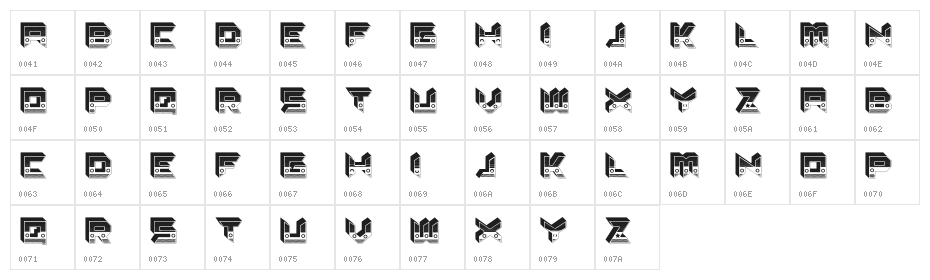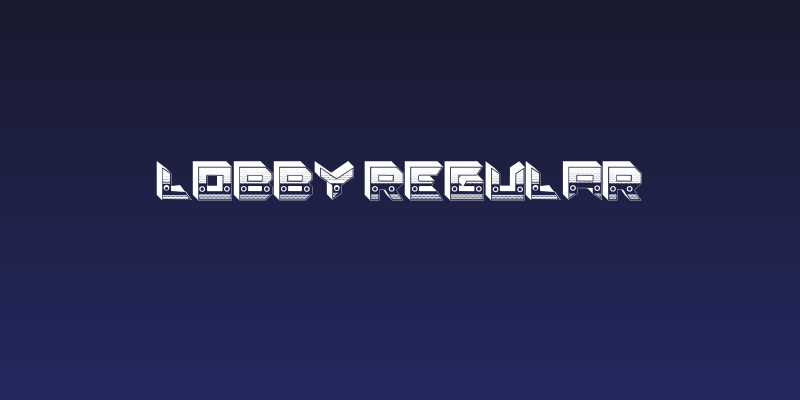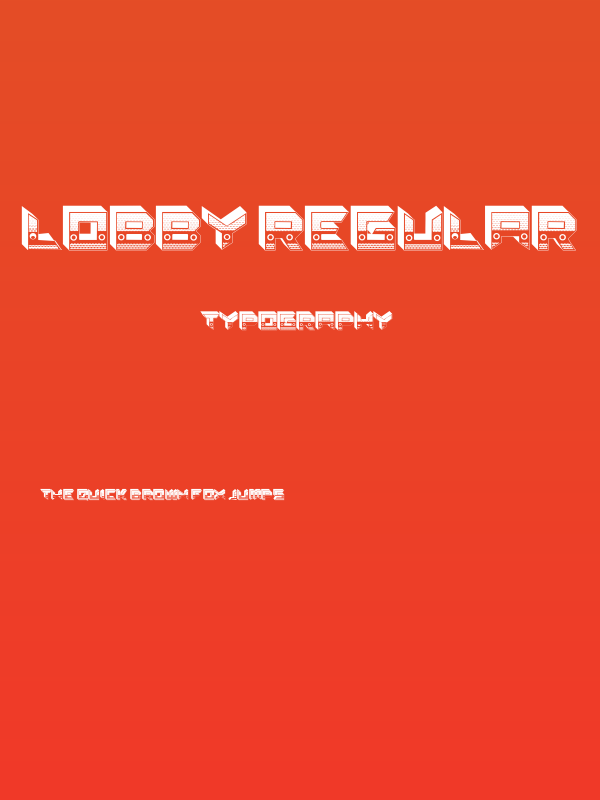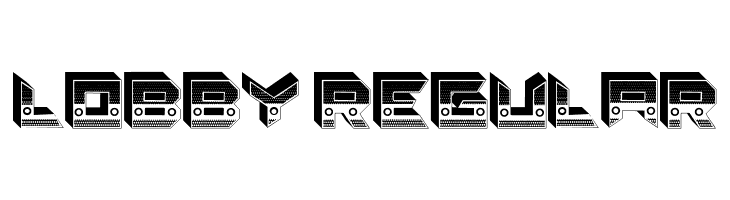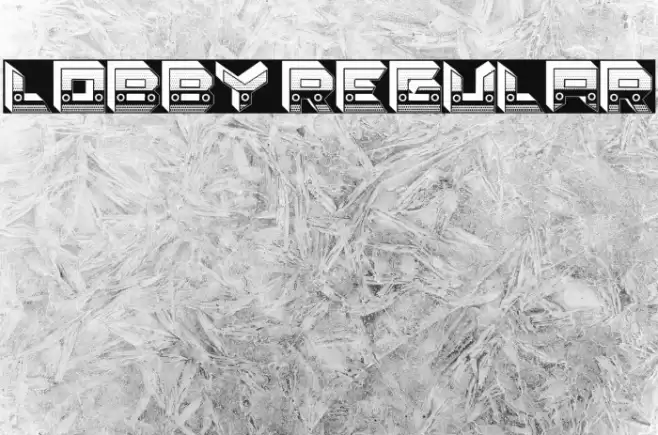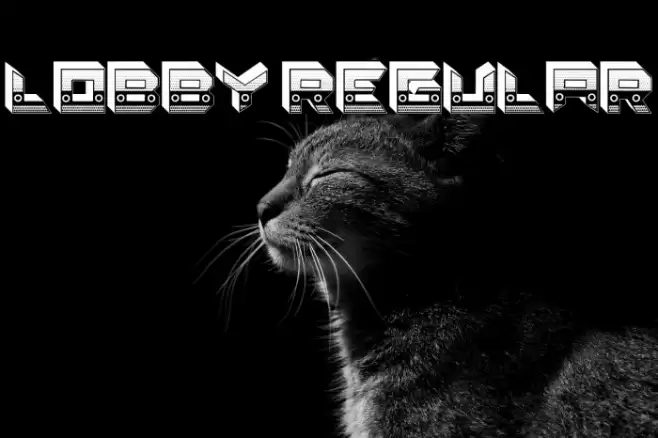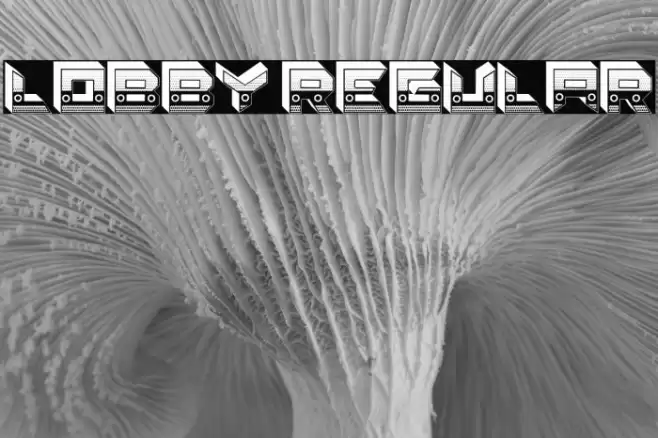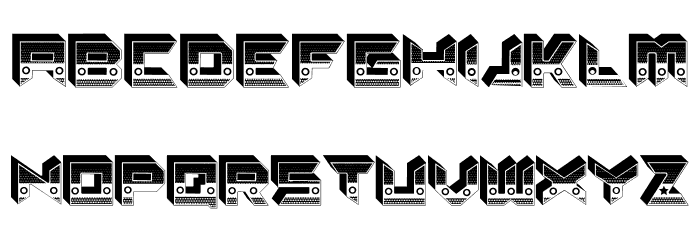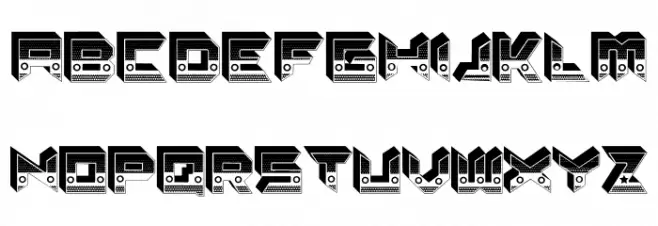
Lobby Regular Font
| Estilo geral | Futuristic, Industrial |
| Projetos propostos | Ideal for technology-themed posters, sci-fi book covers, video game titles, and branding for tech companies. |